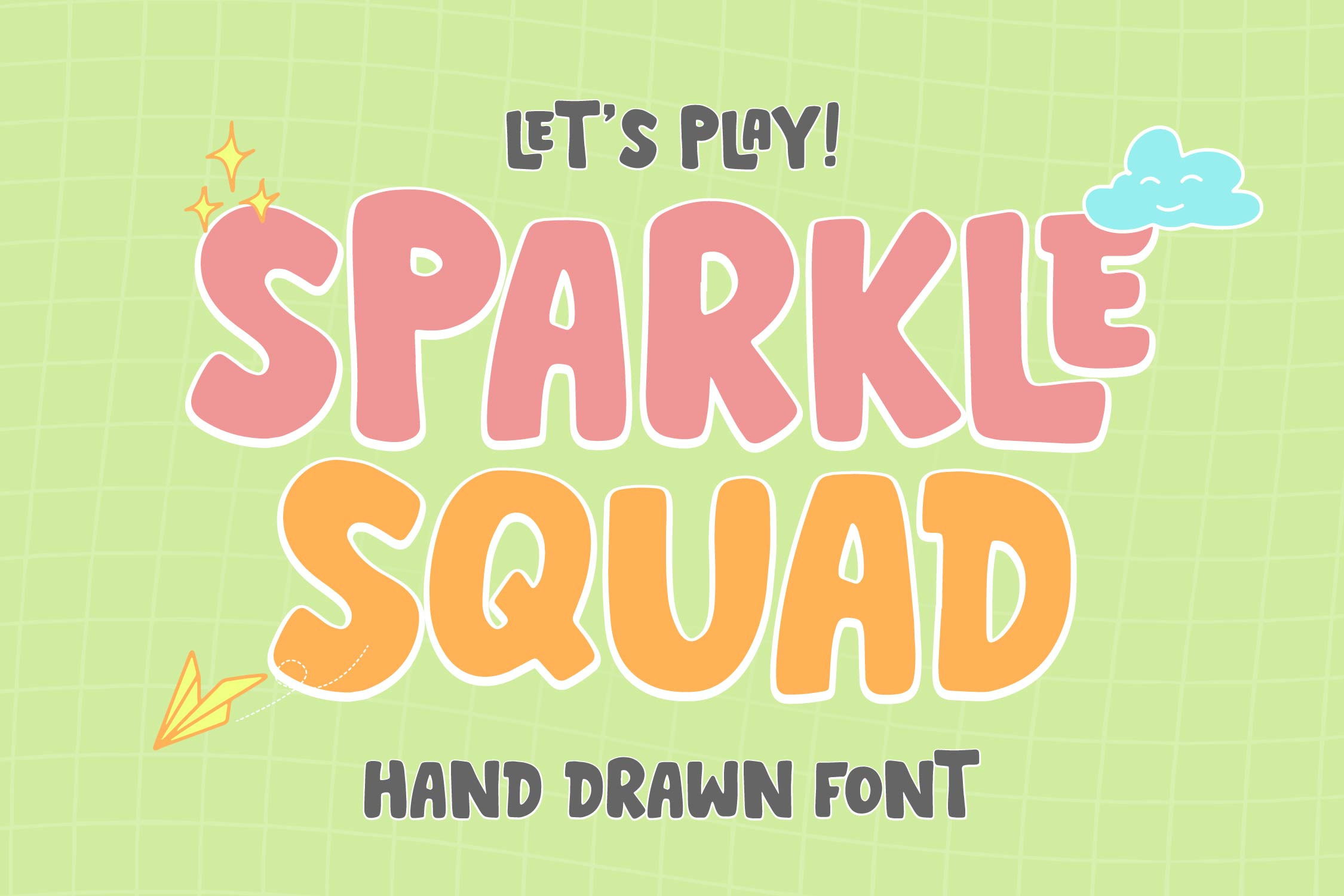
Sparkle Squad | Hand Drawn Font
Sparkle Squad | Hand Drawn Font, from Denustudios, suitable for any projects such as: logos, branding projects, homeware designs, product packaging, mugs, quotes, posters, shopping bags, t-shirts, book covers, name card, invitation cards, greeting cards, label, photography, watermark, special events, and all your other lovely projects that need a Hand Drawn Font taste.